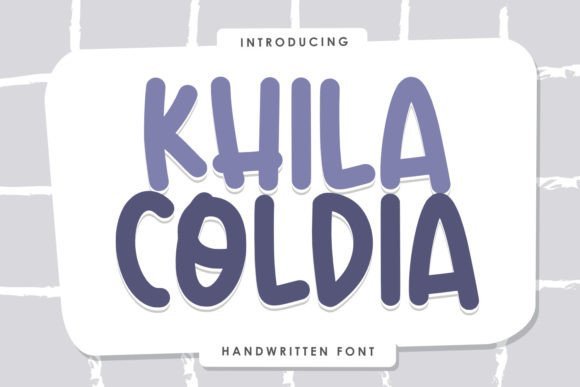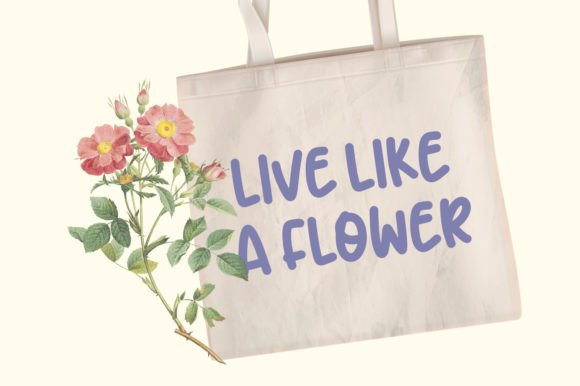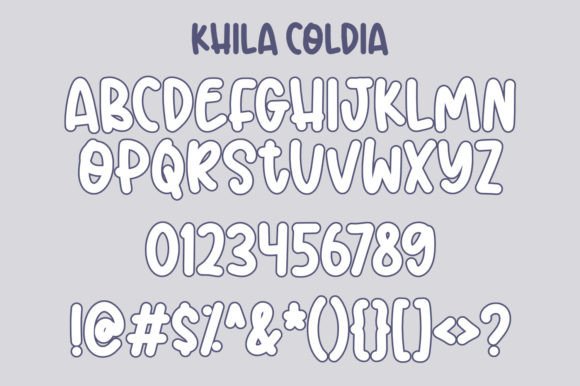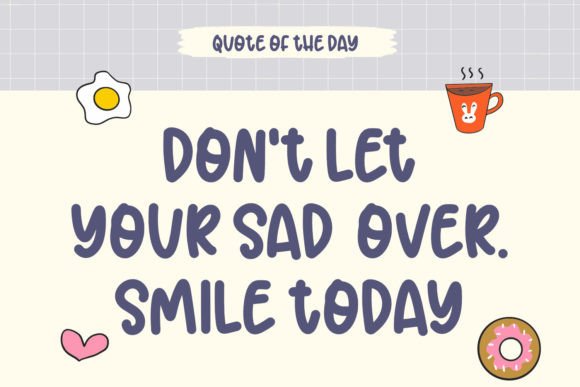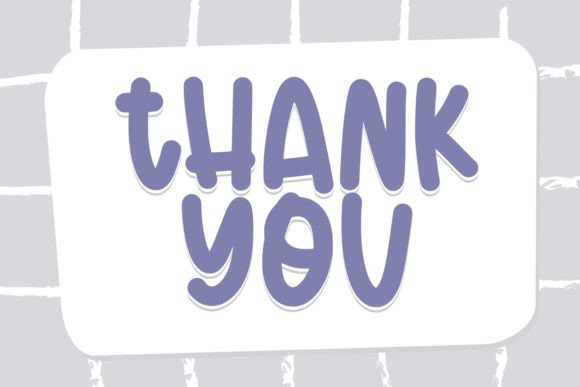
The Perfect Brush Stroke for Your Next Creative Project
Have you ever been working on a design project, staring at a blank page, trying to come up with the perfect idea to capture your audience’s attention? You’ve tried different layouts, colors, and even fonts, but something’s still missing. That’s when you remember that the right font can make all the difference.
Enter the Khila Coldia Font, a cool and casual handwritten font designed to elevate your creations and leave a lasting impression. Whether you’re working on a personal project or a professional campaign, this versatile font is sure to be an incredible asset to your library. With its unique brush strokes and charming character, Khila Coldia Font is the perfect addition to any designer’s toolkit.
Khila Coldia Font Key Features
- Font Family: Khila Coldia is a modern sans-serif font family designed for digital media.
- Font Sizes: Available in multiple font sizes, ranging from 8pt to 72pt, making it suitable for various design applications.
- Unique Characteristics: Khila Coldia features a unique blend of geometric and organic shapes, resulting in a clean and modern aesthetic.
Khila Coldia Font Review
Overall, I think Khila Coldia is a decent font, but it doesn’t blow me away. Let’s start with the good stuff: ✨ I love the unique, handwritten feel it brings to any design. It’s perfect for creating a warm and inviting atmosphere, especially in branding and marketing materials. The font also works well for titles and headings, adding a touch of elegance and sophistication.
Here are some specific things that work well:
- Unique and distinctive handwriting style
- Works well for branding and marketing materials
- Perfect for titles and headings
However, there are some limitations to consider: ⚠️ The font can be a bit too ornate for some designs, and it may be difficult to read in smaller sizes. Additionally, the font family is relatively small, so you may not have as many options as you’d like.
Overall, I’d say Khila Coldia is a solid choice for designers who want to add a touch of personality to their work. However, it may not be the best fit for every project.
Tip: Use Khila Coldia Font for headings and titles to add a touch of elegance to your design.
Tip: Use Khila Coldia Font for typography-heavy designs, such as posters or brochures.
Tip: Use Khila Coldia Font for presentations or documents that require a clean and modern look.
Khila Coldia Font is ideal for:
- Magazine and newspaper titles
- Book covers and chapter headings